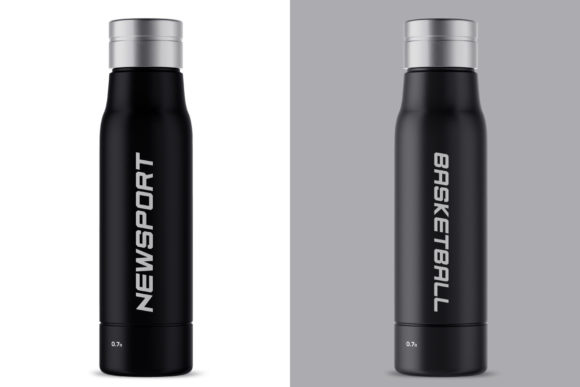
Introducing Newsport Font: The Ultimate Modern Display Font
Are you looking for a font that can add a modern touch to your web designs, business cards, or any other visual project? Look no further than Newsport Font. This cool, bold, and sporty display font is designed to make a statement and take your designs to the next level. In this article, we’ll dive into the features and benefits of Newsport Font, and explore how it can be used to elevate your visual creations.
What is Newsport Font?
Newsport Font is a modern display font that is specifically designed to add a touch of sportiness and sophistication to your designs. With its bold and clean lines, this font is perfect for creating visually appealing headlines, titles, and captions. Its unique style makes it stand out from other fonts, and its versatility allows it to be used in a wide range of design applications.
Key Features of Newsport Font
- Bold and Sporty Design: Newsport Font features a bold and sporty design that is sure to grab attention.
- Clean Lines: The font’s clean lines make it easy to read and add a touch of sophistication to your designs.
- Modern Style: Newsport Font has a modern style that is perfect for creating contemporary designs.
- Versatile: This font can be used in a wide range of design applications, from web designs to business cards.
Benefits of Using Newsport Font
There are many benefits to using Newsport Font in your designs. Here are just a few:
- Adds a Modern Touch: Newsport Font can add a modern touch to your designs, making them look fresh and contemporary.
- Grabs Attention: The font’s bold design makes it perfect for grabbing attention and creating visually appealing headlines.
- Easy to Read: Despite its bold design, Newsport Font is easy to read, making it perfect for use in body text as well as headlines.
- Versatile: This font can be used in a wide range of design applications, making it a great addition to any designer’s toolkit.
How to Use Newsport Font
Newsport Font can be used in a wide range of design applications, from web designs to business cards. Here are a few ideas for how to use this font:
- Web Designs: Use Newsport Font to create visually appealing headlines and titles for your website.
- Business Cards: Add a modern touch to your business cards with Newsport Font.
- Social Media Graphics: Use Newsport Font to create eye-catching social media graphics.
- Posters and Flyers: Create bold and eye-catching posters and flyers with Newsport Font.
Tips for Using Newsport Font Effectively
Here are a few tips for using Newsport Font effectively:
- Use it Sparingly: Newsport Font is a bold font, so use it sparingly to avoid overwhelming your designs.
- Pair it with Other Fonts: Pair Newsport Font with other fonts to create visual interest and add depth to your designs.
- Experiment with Colors: Experiment with different colors to find the perfect combination for your designs.
- Keep it Consistent: Use Newsport Font consistently throughout your designs to create a cohesive look.
FAQs About Newsport Font
- What is Newsport Font?: Newsport Font is a modern display font that is specifically designed to add a touch of sportiness and sophistication to your designs.
- What is Newsport Font used for?: Newsport Font can be used in a wide range of design applications, from web designs to business cards.
- Is Newsport Font easy to read?: Yes, despite its bold design, Newsport Font is easy to read.